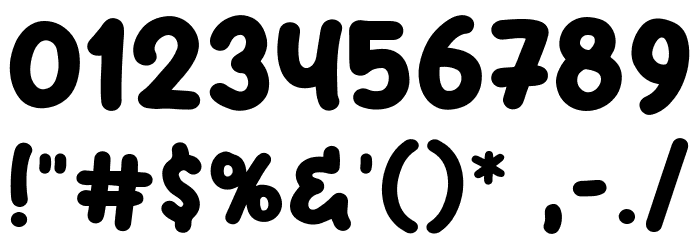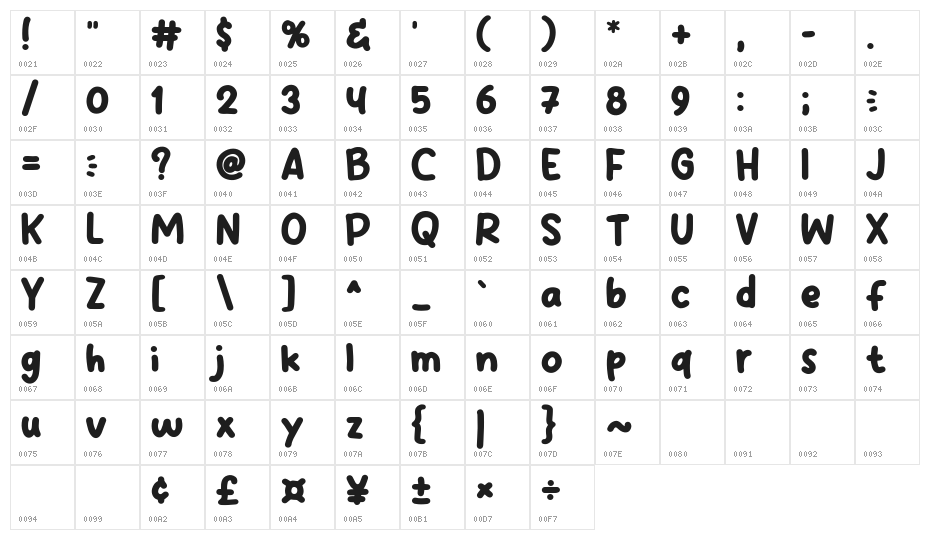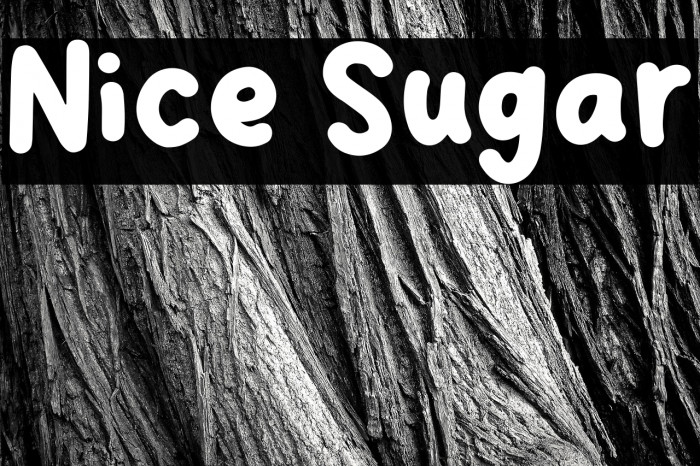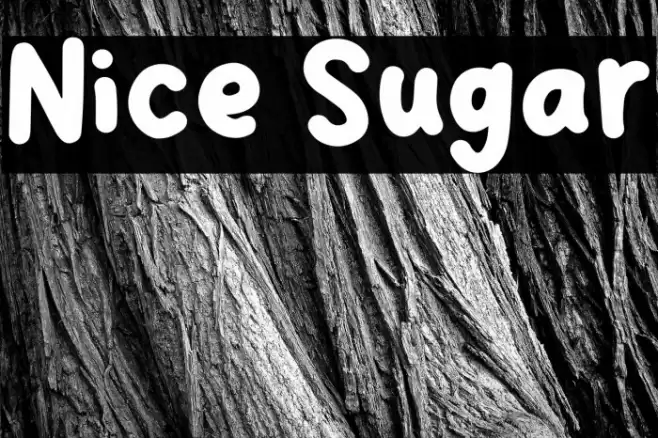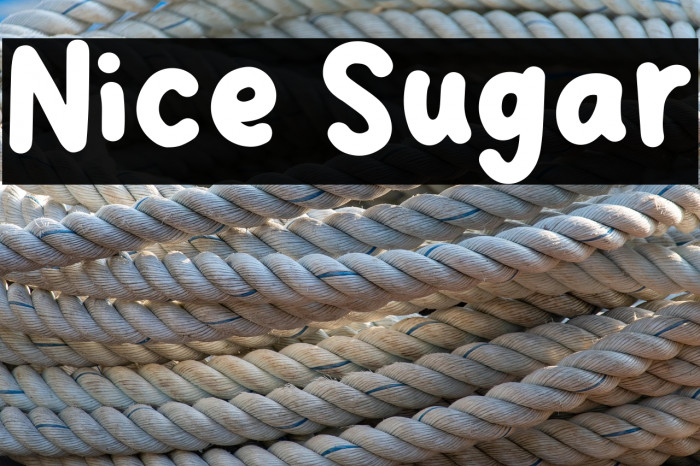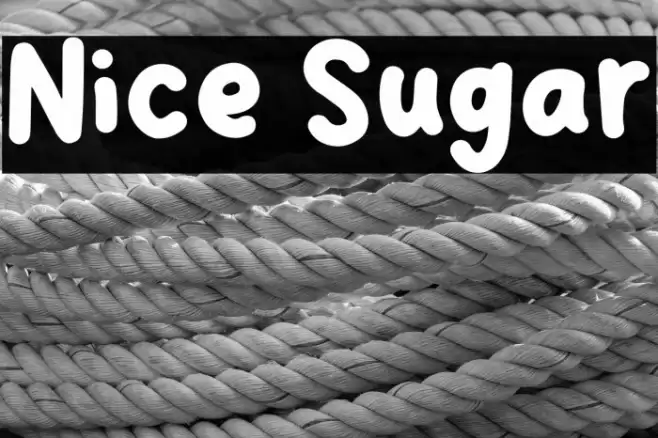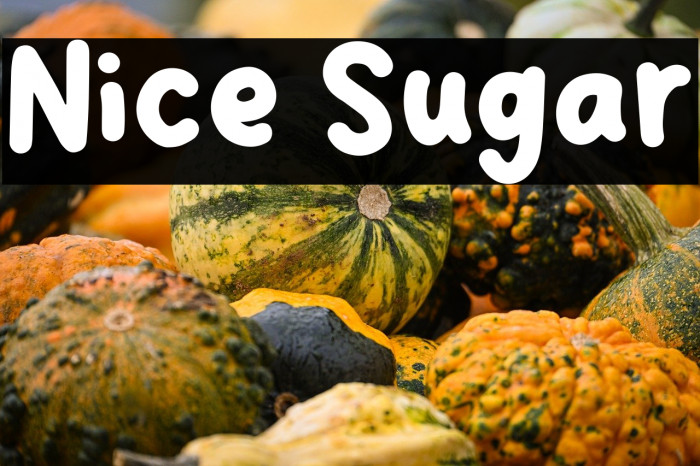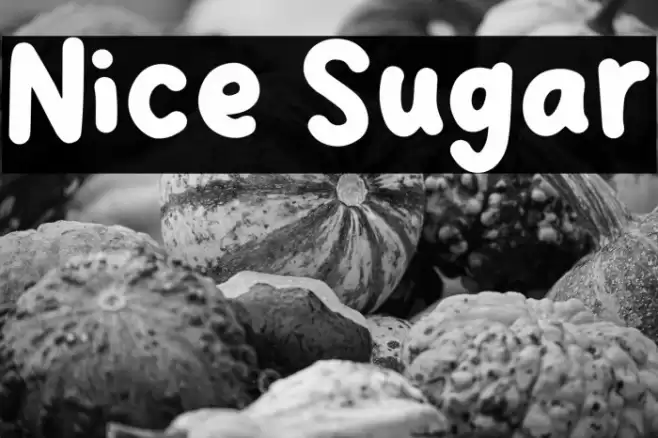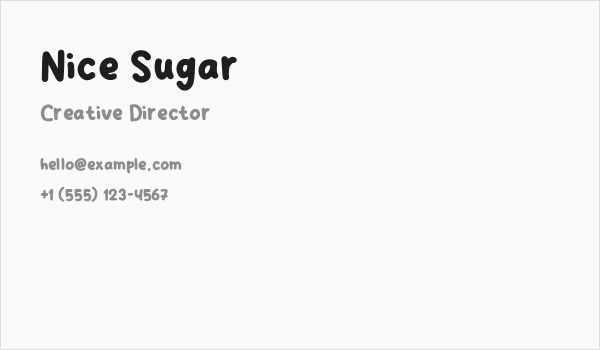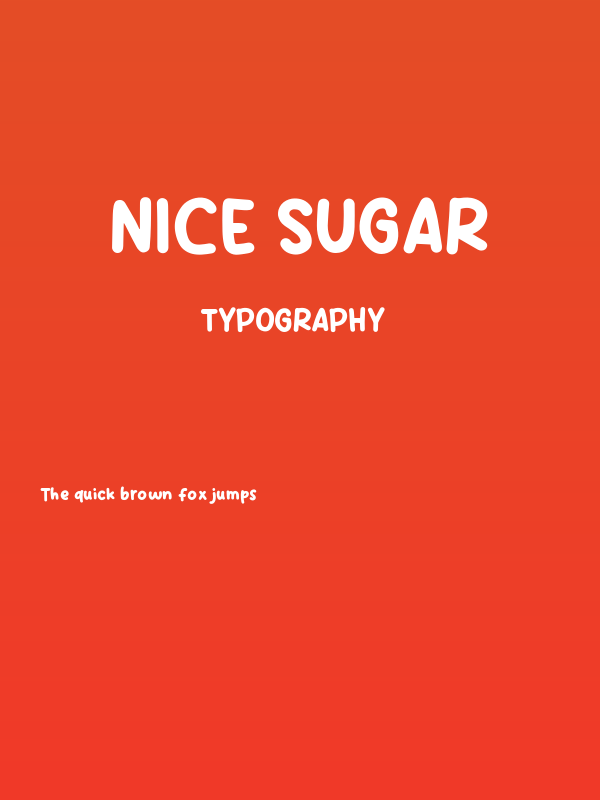
Nice Sugar Font
Nice Sugar Description
This playful and bold font features rounded, bubbly characters that convey a sense of fun and approachability. The letters are thick and uniform, with a consistent stroke width that adds to the font's friendly and informal appearance. The rounded edges and slightly irregular shapes give it a hand-drawn feel, making it perfect for projects that require a personal touch. The numbers and special characters maintain the same playful style, ensuring consistency across all text elements. This font is ideal for children's books, playful branding, or any design that aims to evoke joy and creativity.
| Proposed Projects | Children's books, playful branding, greeting cards, posters, and social media graphics. |